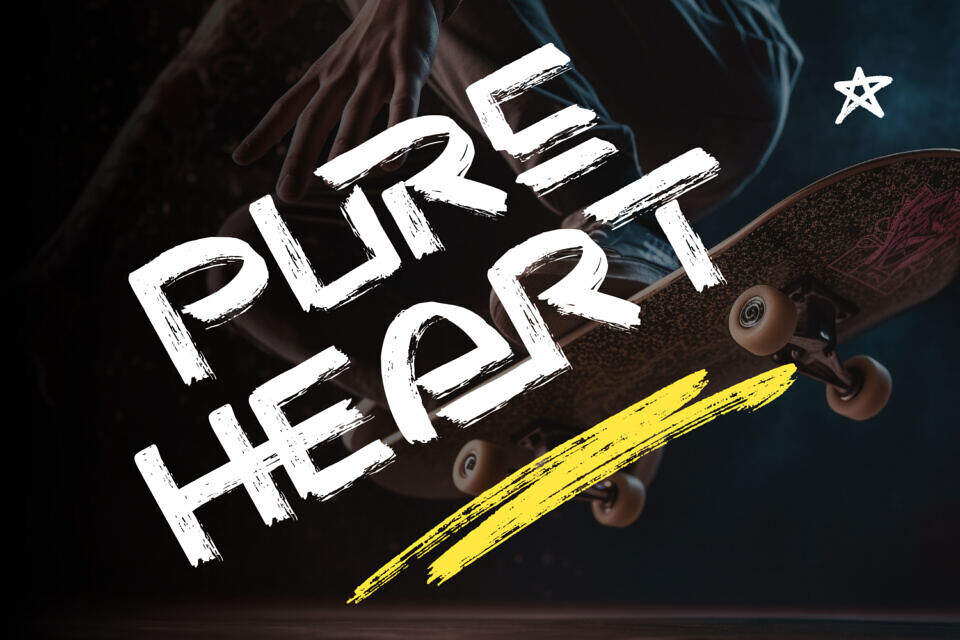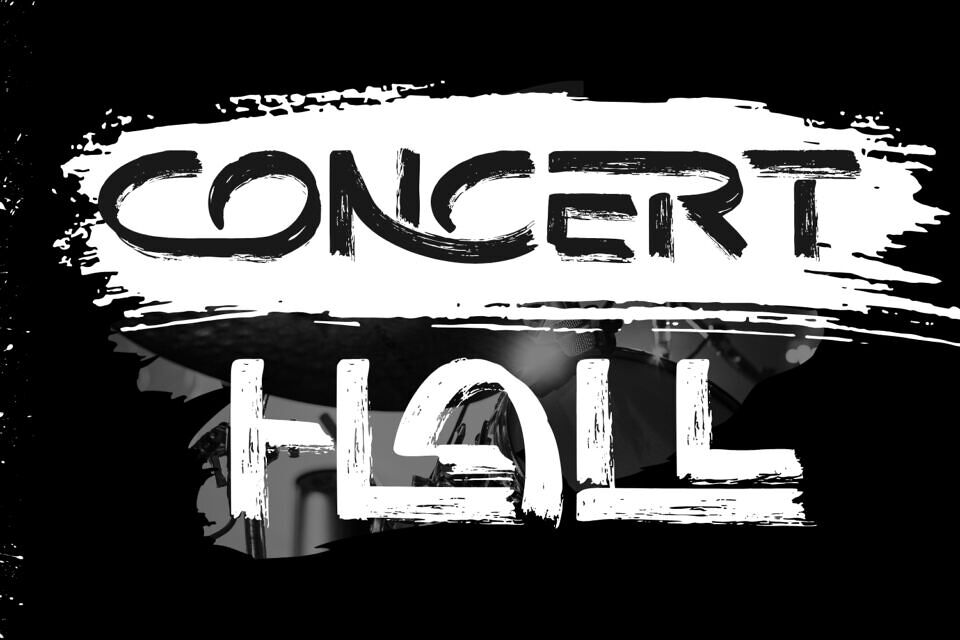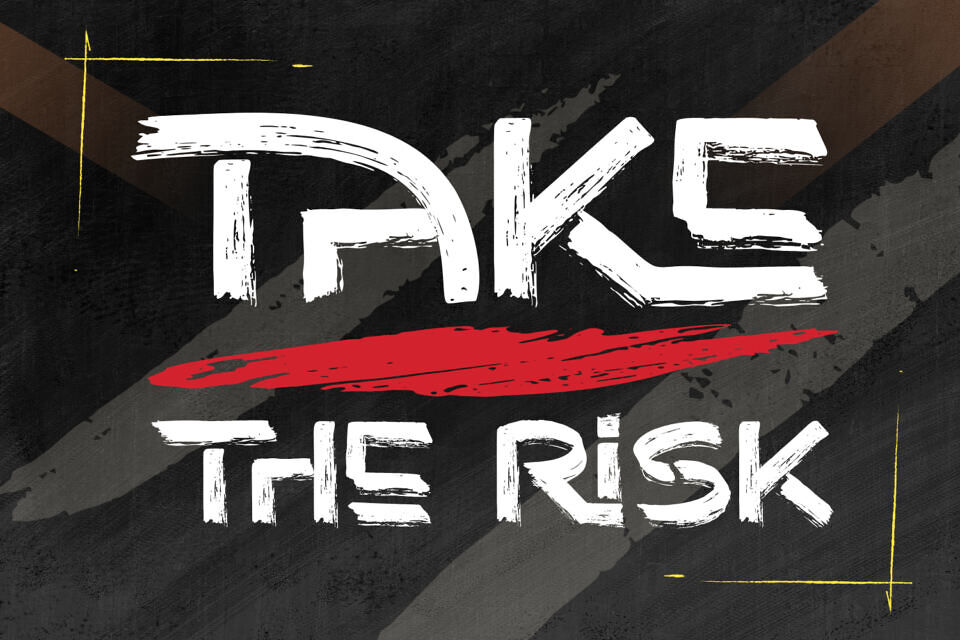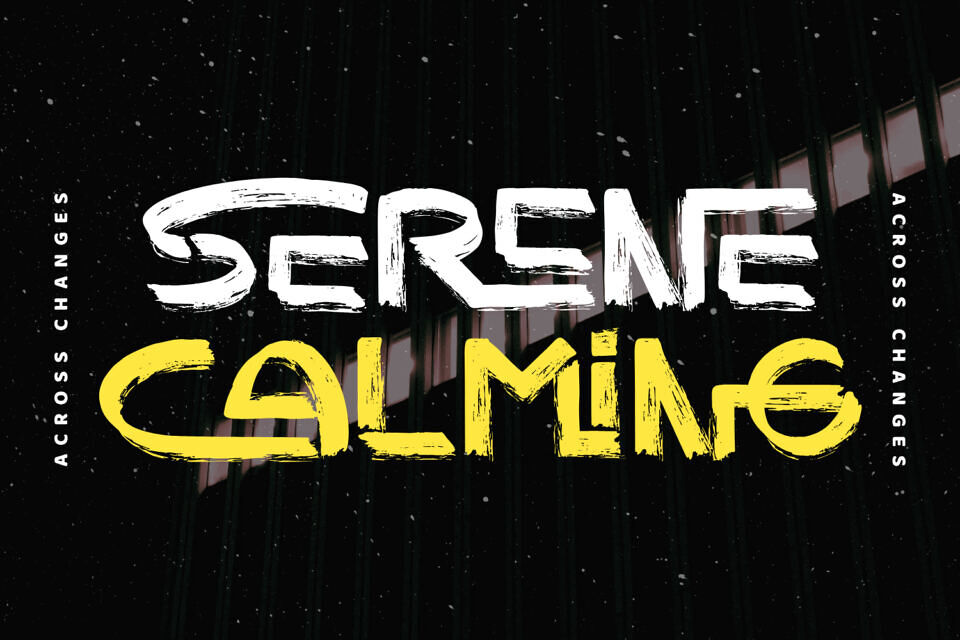
Across Changes Font
ACROSS CHANGES is a bold brush display font that captures the raw energy of hand-painted strokes. Each character is crafted with rough edges, paint-like textures, and expressive movement, giving the typeface a dynamic and rebellious personality.
Perfect for poster design, streetwear branding, music covers, sports graphics, and editorial headlines, this font brings a sense of authenticity and boldness that stands out in any creative project.